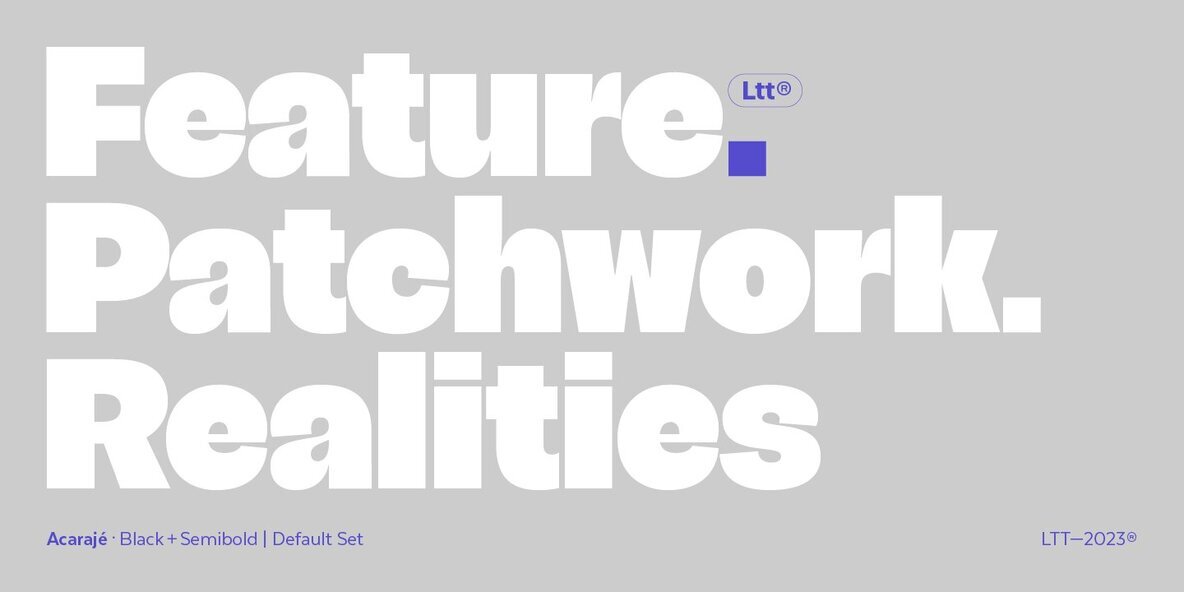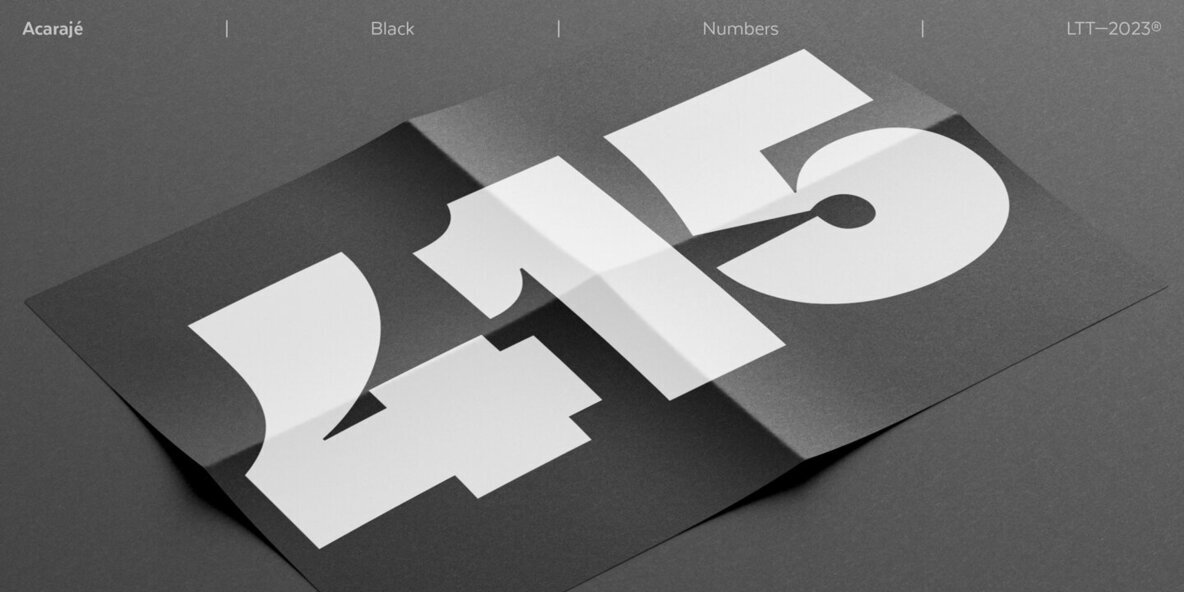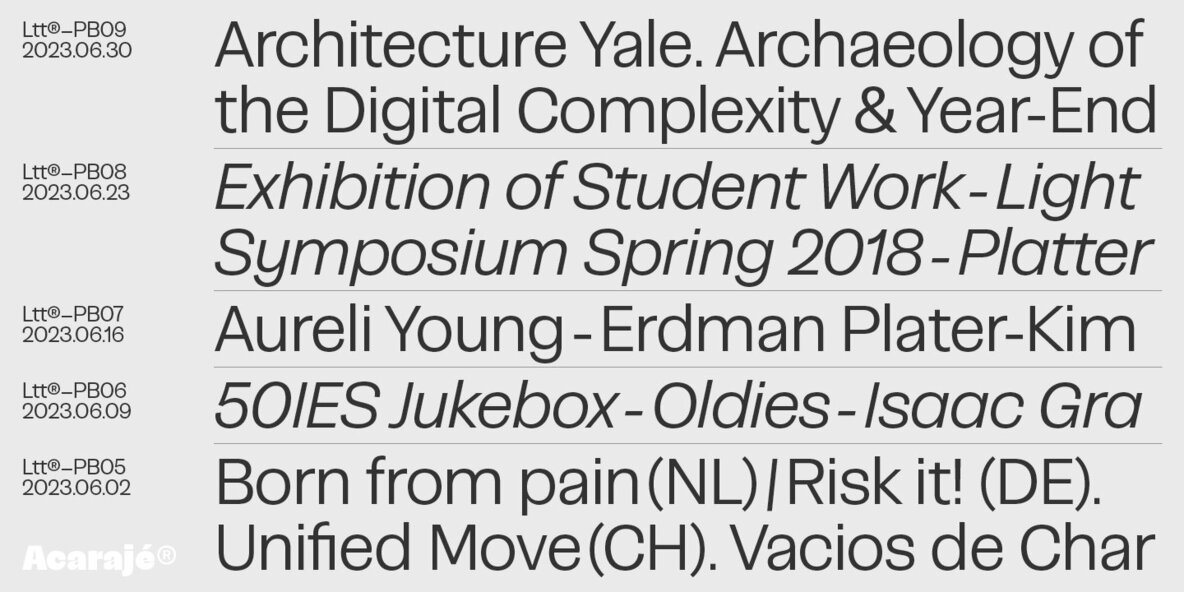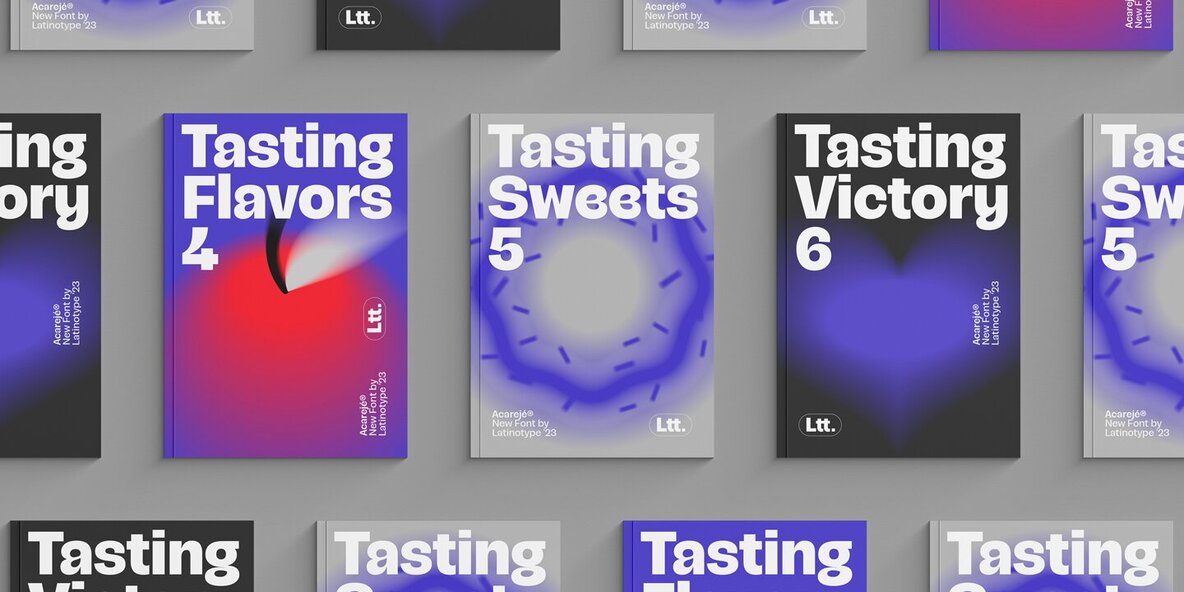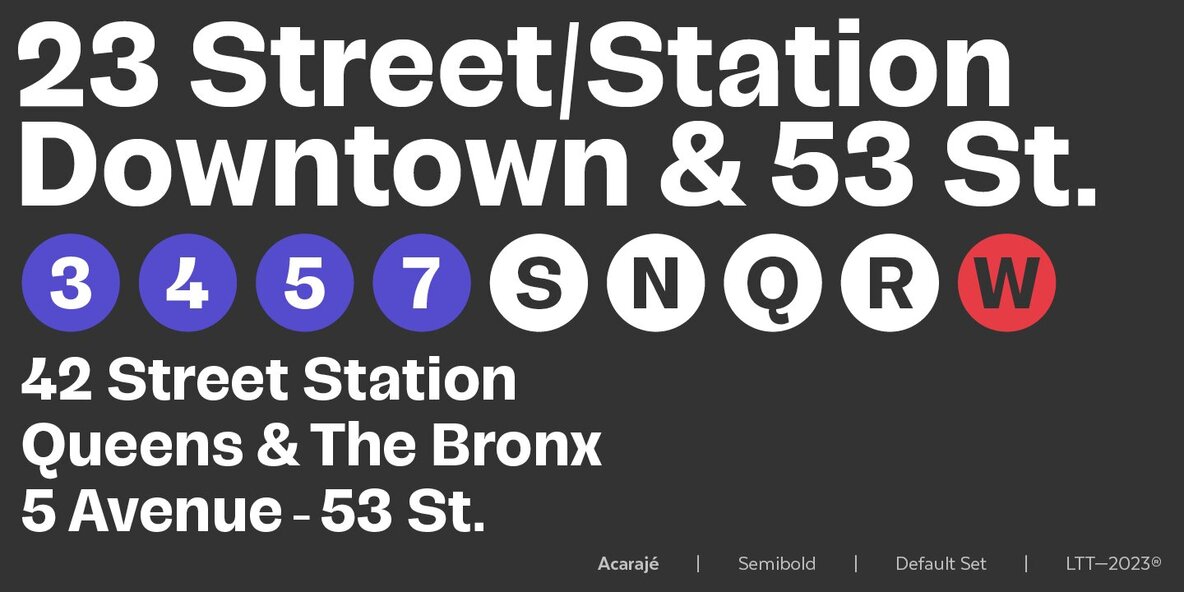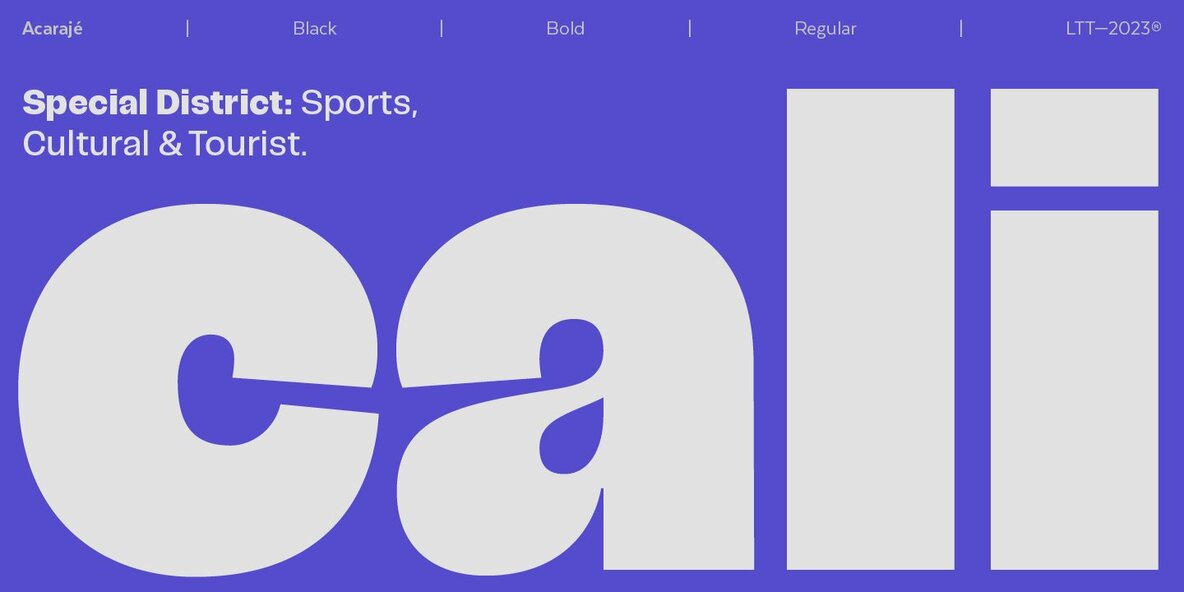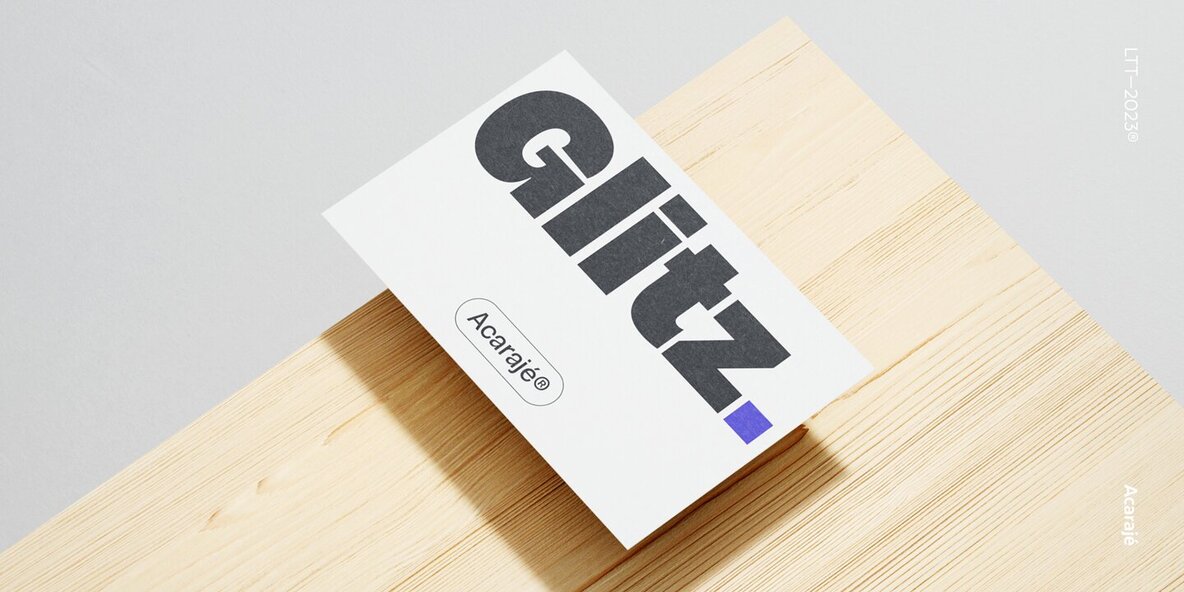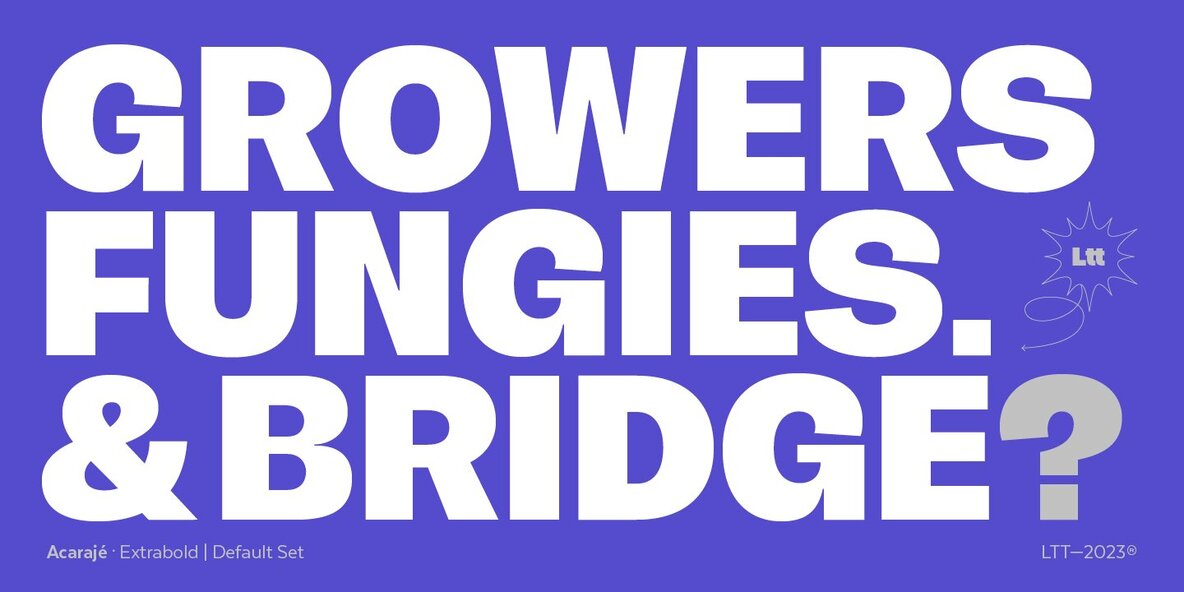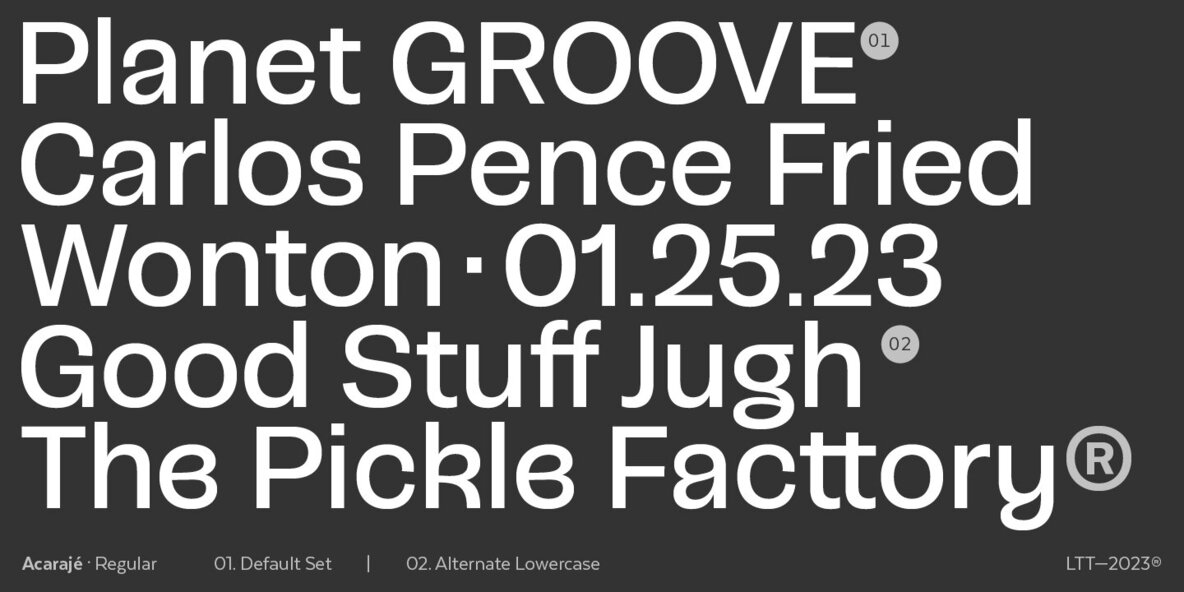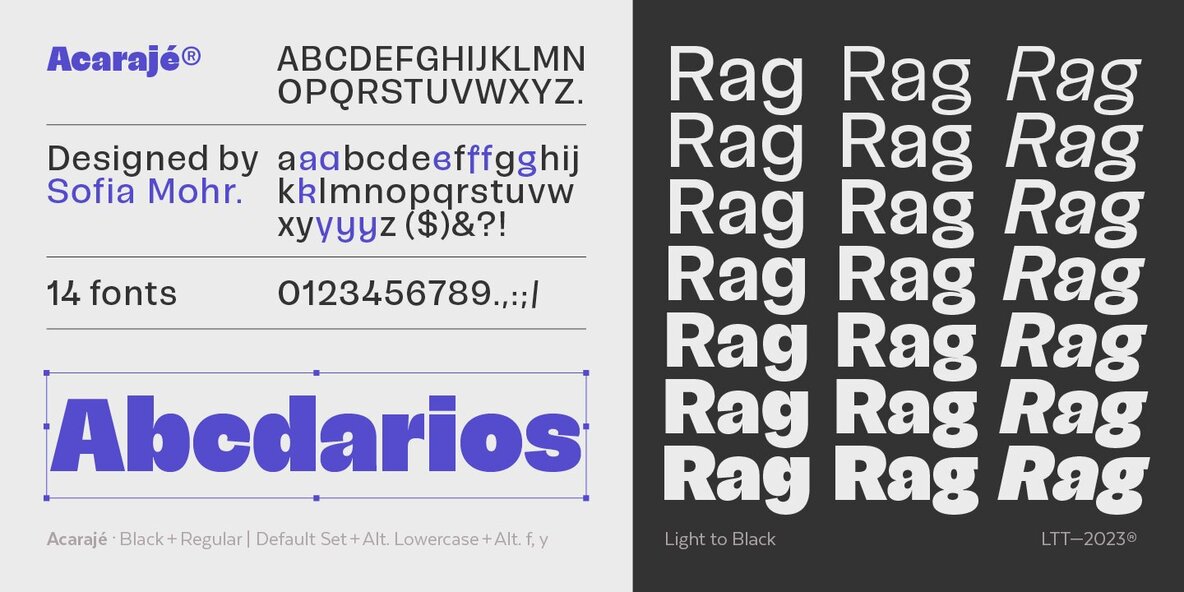
Acaraje Font
Immerse yourself in artistry with the Acarajé grotesque font, a flexible masterpiece intricately crafted by the renowned creative design studio, LatinoType. Combining both classical appeal and contemporary aesthetics, Acarajé is ready to imbue your design narratives with harmony and character. This font's distinctive modulation expands and evolves throughout the weight spectrum, yielding a jovial yet sophisticated typeface that never waivers from the core principles of good design. Apart from its striking physique, Acarajé brings to the limelight the height of versatility. This grotesque font is not only suave but also highly adaptable to a range of design applications, from branding and marketing to editorial and beyond. The embodiment of an elegant balance between form and function, Acarajé effortlessly demands attention, promising to elevate the visual impact and engagement of your work. FeaturesCaptivate and Charm with Acarajé Grotesque Font by LatinoType